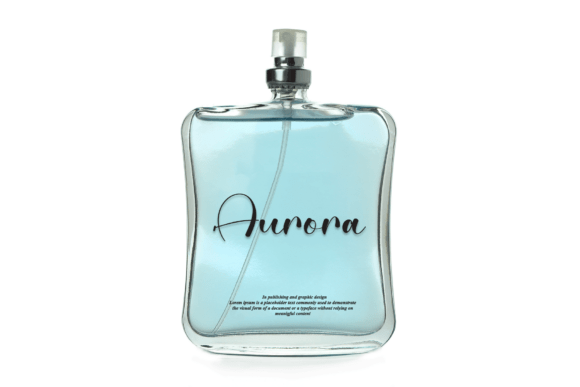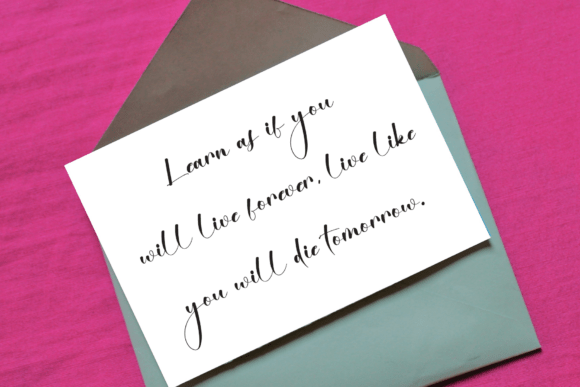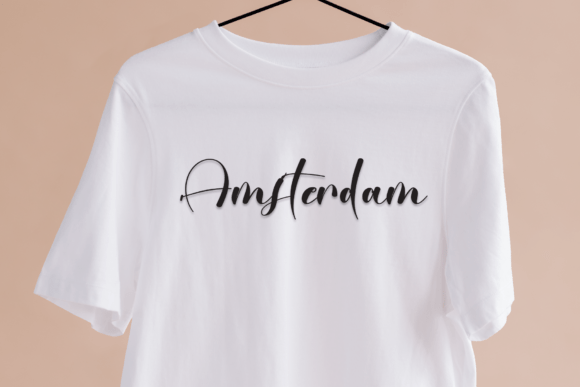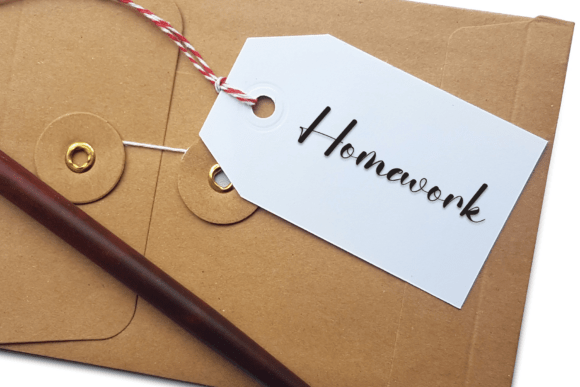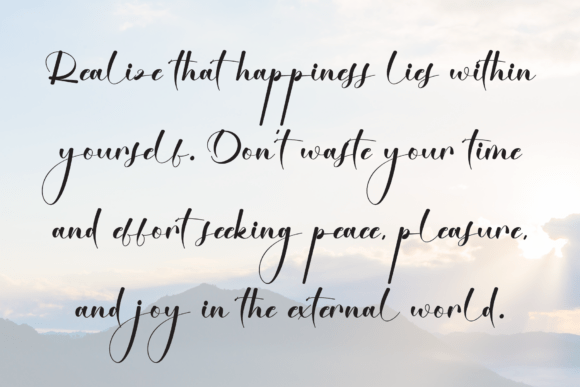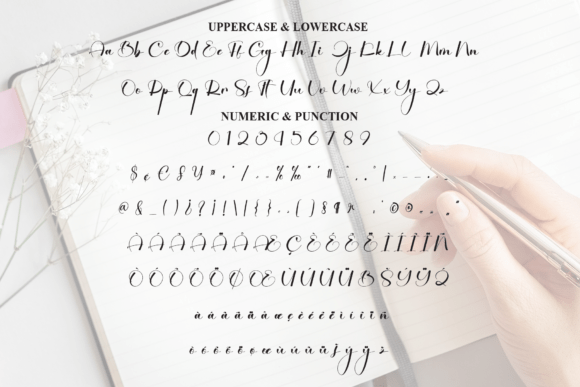
Introducing Diary Font: Elevate Your Designs with a Touch of Elegance
Are you a designer, crafter, or DIY enthusiast looking for a unique and creative way to add a personal touch to your projects? Look no further than Diary Font, a specially designed font that offers a distinctive and stylish way to elevate your designs. With its latest style letters, Diary Font is perfect for a wide range of applications, from wall displays and wedding invitations to social media post logos, advertisements, product packaging, and more.
Unleash Your Creativity with Diary Font
Diary Font is more than just a font – it’s a creative tool that allows you to add a touch of elegance and sophistication to your designs. Whether you’re working on a personal project or a professional assignment, this font is designed to help you stand out from the crowd. With its beautiful, hand-crafted letters, Diary Font is perfect for anyone looking to add a personal touch to their work.
Diary Font is incredibly versatile and can be used for a wide range of design projects, including:
- Wall displays: Add a touch of elegance to your wall art with Diary Font.
- Wedding invitations: Make your wedding invitations truly special with this beautiful font.
- Social media post logos: Elevate your social media presence with custom logos created using Diary Font.
- Advertisements: Stand out from the crowd with eye-catching advertisements featuring Diary Font.
- Product packaging: Add a touch of sophistication to your product packaging.
- Product designs: Create stunning product designs that showcase your brand’s personality.
- Labels: Create custom labels that feature your brand’s unique style.
- Photography: Add a touch of elegance to your photography with custom watermarks.
- Invitations: Create stunning invitations for any occasion.
- Stationery: Elevate your stationery with beautiful, hand-crafted letters.
Why Choose Diary Font?